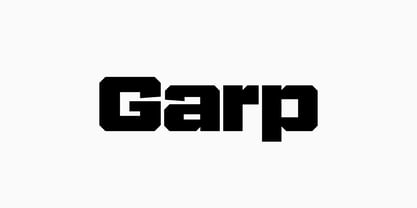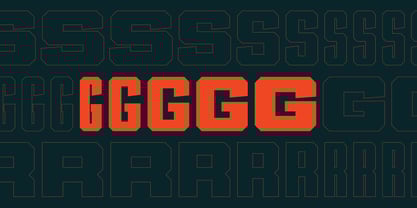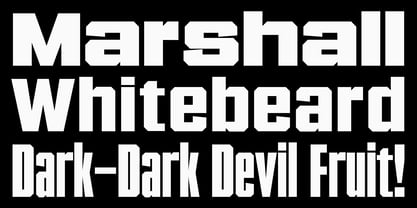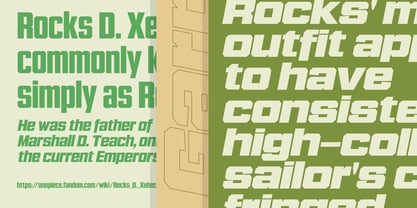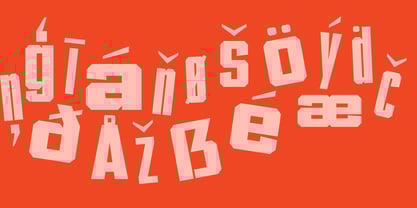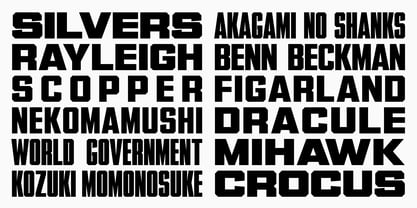
Garp Sans
von Studio Fat Cat
Die Schriftfamilie Garp Sans wurde von Atok Khoirudin entworfen und von Studio Fat Cat veröffentlicht. Garp Sans enthält 10 Stile und Familienpaketoptionen.
Garp Sans is a bold, modern sans serif font family built for versatility and impact. With five distinct styles—Condensed, Narrow, Compaq, Normal, and Wide—this geometric typeface stretches from sleek and professional to retro and rugged, making it perfect for everything from automotive and tech branding to college logos and baseball merch.
Whether you're crafting a premium corporate identity, a sport heading, or a futuristic technology interface, Garp Sans holds its ground. It’s got the tall stance of athletic lettering, the grit of the western cowboy, and just enough vintage flair to make it feel retro, without losing that clean, modern edge.
Perfect for car ads, racing posters, food packaging, kids brands, or anything outdoors, this professional yet playful family blends bold confidence with a flexible structure that fits logos, tech displays, and everything in between.